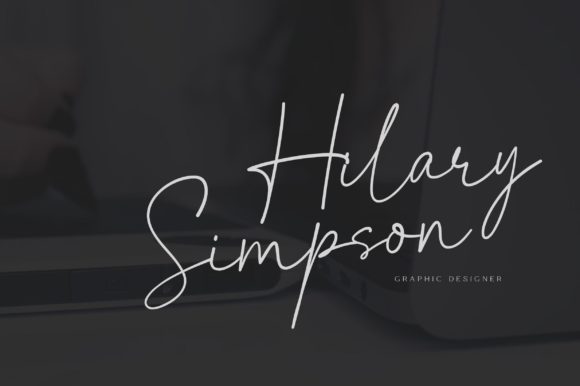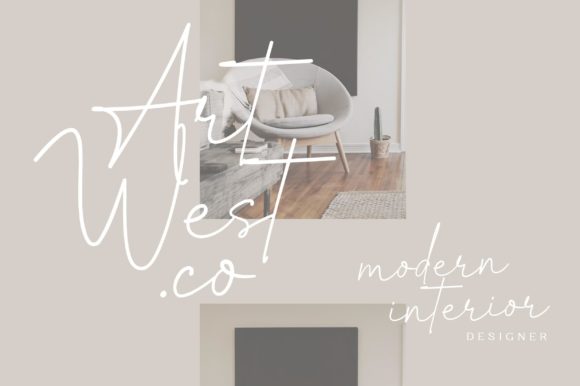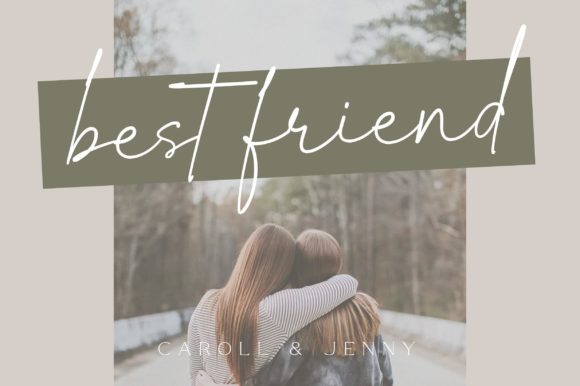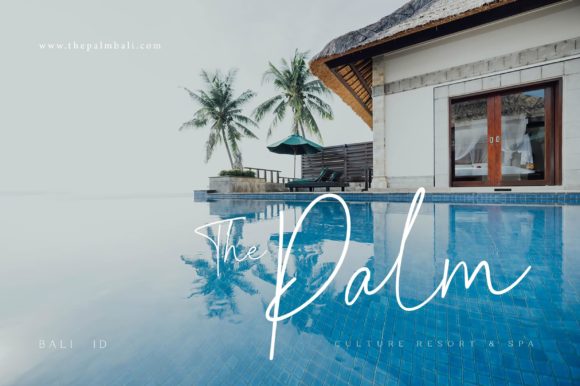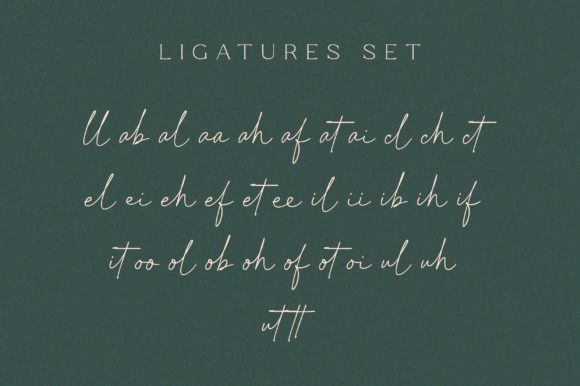
The Bafels Font
About The Bafels Font
The Bafels is a lovely and delicate script font that exudes elegance and class. This font was particularly crafted for those who need a beautiful and refreshing look to their designs.